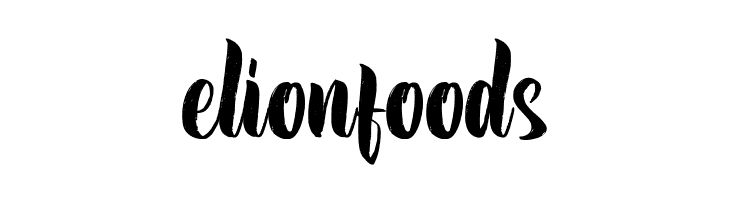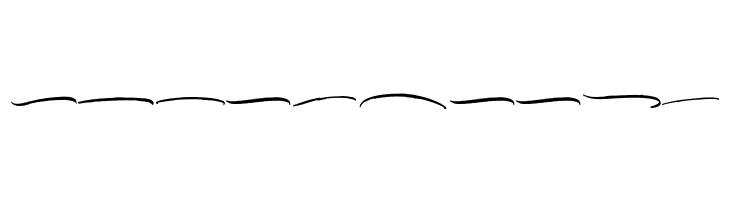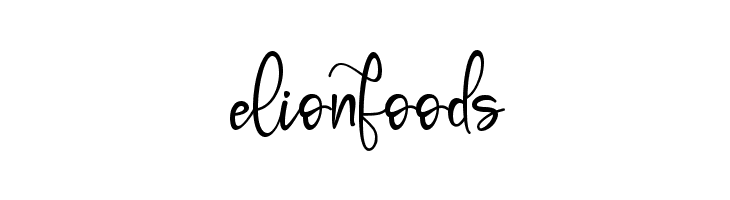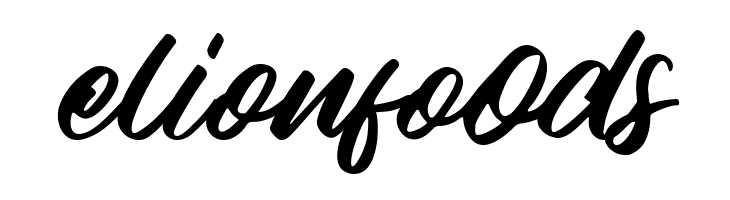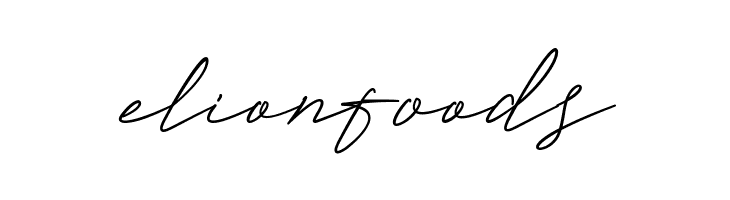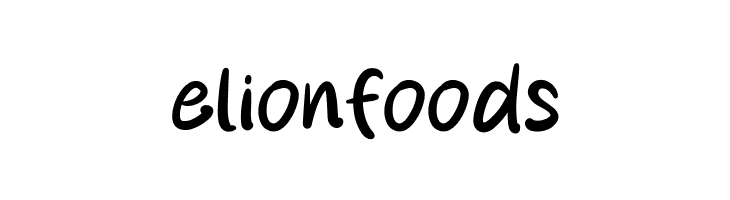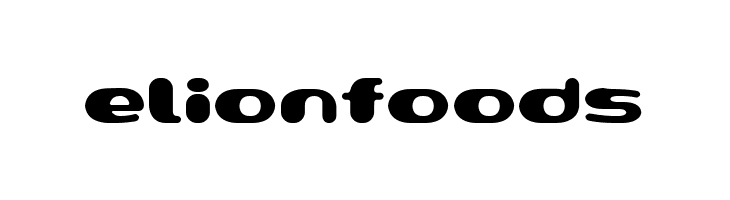
• Milky Way
• Milky Week
A playful, bold handwritten font with smooth curves and a casual style.
• Milkyway Hotel Personal Use
A modern, geometric font with a futuristic style and sharp angles.
• MilkyWell
• Millan personaluse
An elegant, flowing script font with a natural handwriting style.
• Millano Script
A bold, cursive script font with high contrast and fluid strokes.
• Millea
A bold, expressive script font with fluid, interconnected strokes and a handcrafted feel.
• Millea Diary
A whimsical and flowing script font with elegant, fluid letterforms.
• Millea Swash
A decorative font with elegant swashes and calligraphic style.
• Millena
A lively and flowing script font with elegant cursive letterforms.